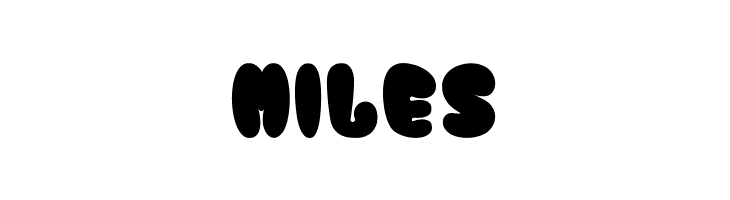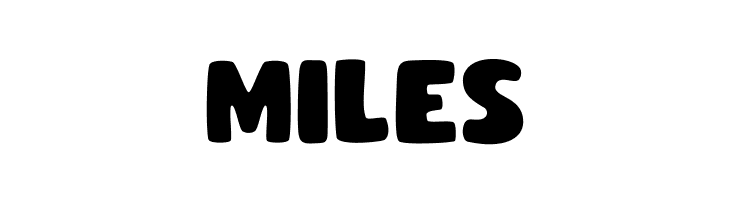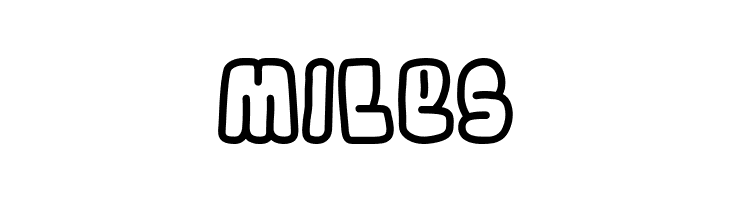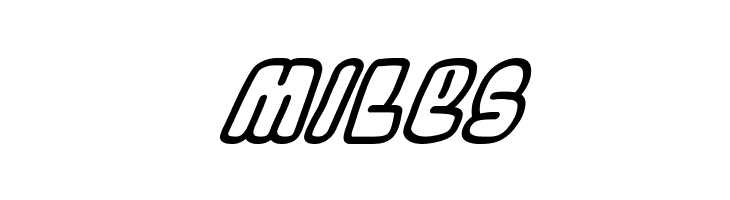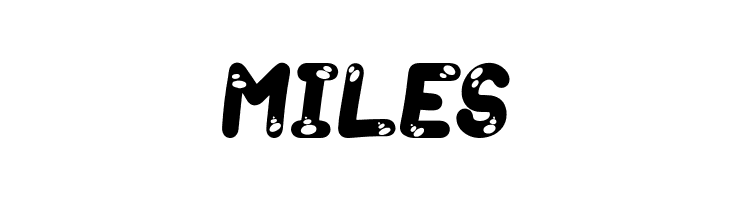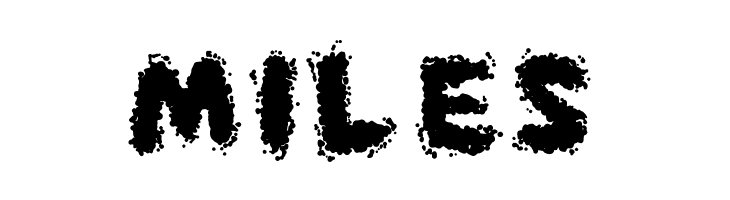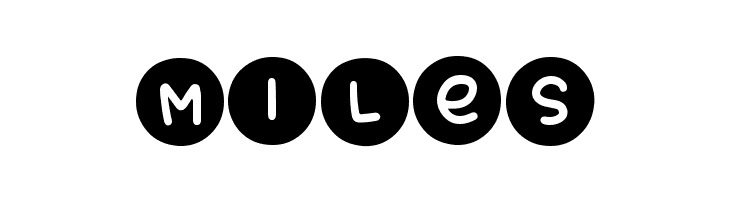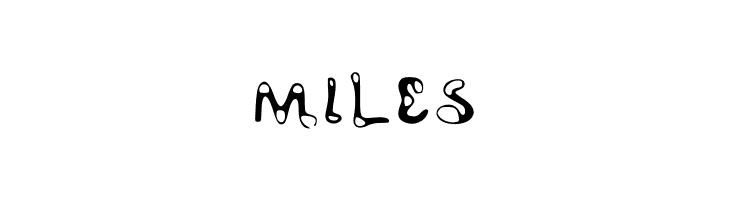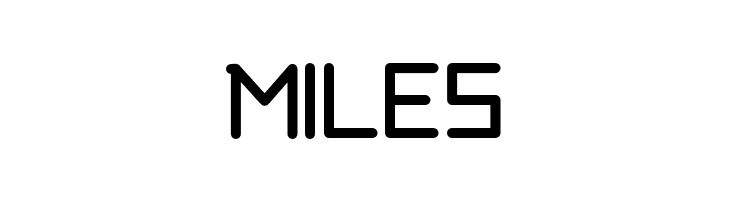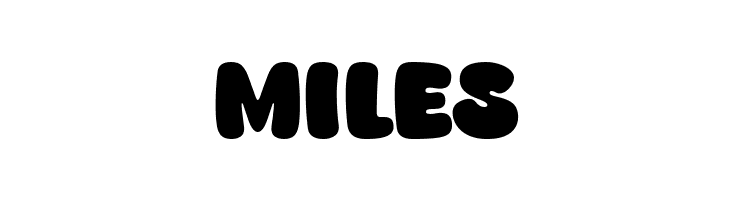
bubble letter Fonts
About the bubble letter fonts
Bubble Letter fonts bring a playful, bold, and friendly energy to any design. Rounded shapes, inflated curves, and soft edges make these fonts instantly recognizable and full of personality. Use them for logos, titles, stickers, and social posts where fun and creativity matter more than formality. This category captures a sense of joy and nostalgia — perfect for children’s products, comics, streetwear, or festive campaigns. Balance the visual weight by pairing bubble fonts with simple sans serifs or geometric companions for body text. Keep spacing open and contrast high so letters stay legible even at small sizes. Avoid heavy shadows or outlines unless the goal is a cartoon-style look. On digital layouts, let white space breathe around the forms and emphasize the playful rhythm. Bubble Letter typefaces work best when the message aims to stand out with warmth and optimism. Use them for packaging, creative headers, game interfaces, or DIY branding projects. Explore related categories for complementary pairings and moods: Cartoon, Comic, Kids, Display. Mix and match them for seasonal campaigns, youthful identities, or event visuals that celebrate color and expression.
A fat child Font
A playful, hand-drawn font with bold, rounded characters and a whimsical style.
Abstraction Font Regular Font
Whimsical, abstract decorative font with playful loops and dots.
abubble Font
Geometric, rounded sans-serif with a modern, technical look.
AEZzipedity Font
A playful, dotted font with a whimsical and decorative style.
Alterday Font
A stylish, cursive handwritten font suitable for personal and decorative use.
Atop Font
Ultra-bold, rounded, playful display font with bubbly shapes.
Avatar 1 Font
A bold, vintage serif font with decorative elements.
Baby Plums Font
Playful, rounded sans-serif with hand-drawn style inside black circles.
Balloonatic Font
A playful, balloon-inspired font with bold outlines and rounded edges.
Bath Time Regular Font
A playful, bold font with rounded, bubbly characters and a whimsical style.
Beatday Font
A handwritten, casual script font suitable for informal and creative uses.
Before the Storm Font
Elongated, narrow handwritten script with flowing strokes.
Belix Font
A bold, italic, sans-serif display font with a dynamic, energetic style.
Bemydor Font
A playful, polka dot patterned decorative font with bold, rounded characters.
Betaloa Font
A handwritten, casual script font with a whimsical and playful style.
Bible Stories Personal Use Font
A casual, handwritten script font with a sketchy, playful style.
Bithea Font
A handwritten cursive script font with a casual, elegant style.
Blackfang Font
A graffiti-inspired, bold display font with a rough, energetic look.
Bloody Scene Font
A bold, dripping display font ideal for horror or Halloween themes.